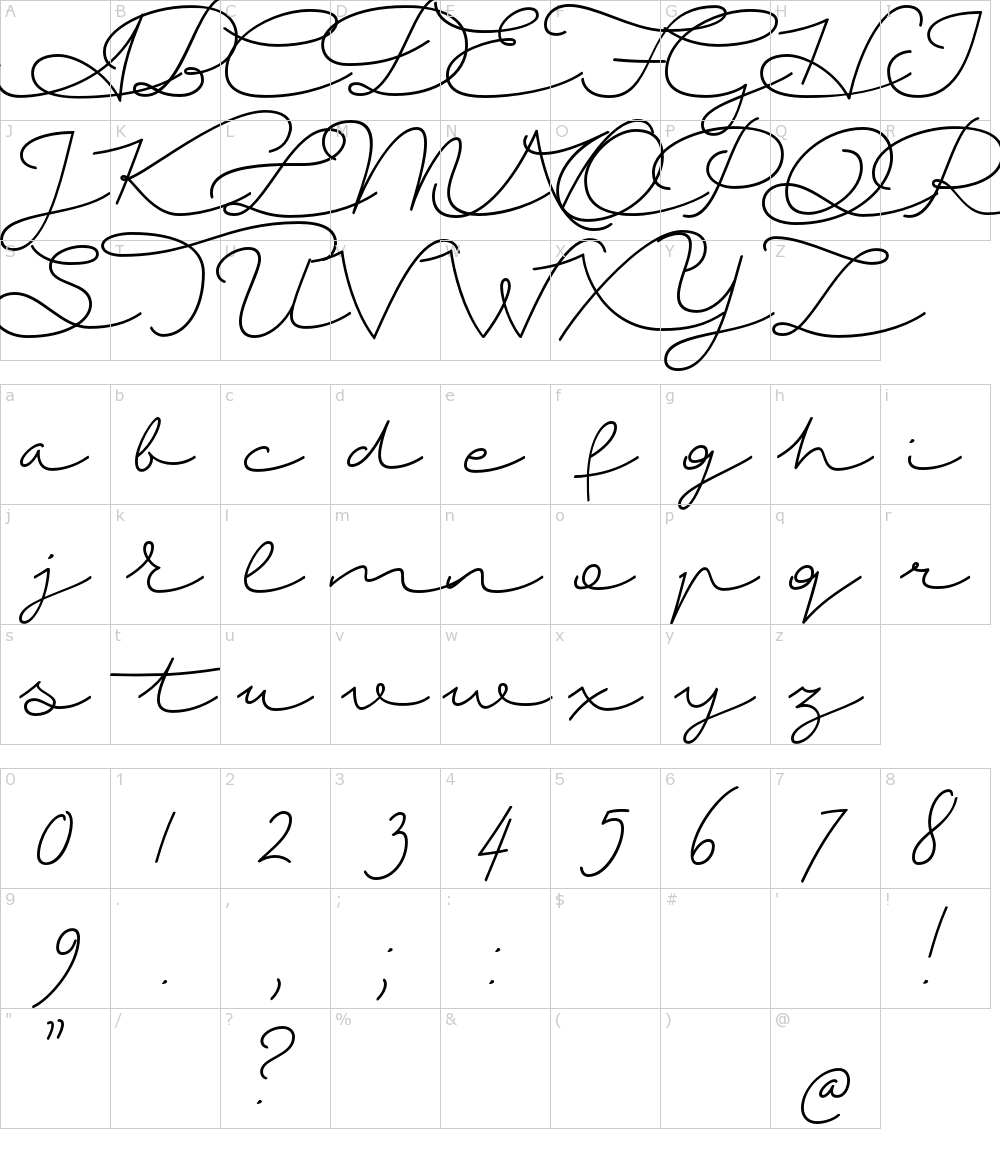
autumn chant
Embrace the Beauty of Autumn with Autumn Chant Font
Autumn Chant, designed by Emily Roberts in 2023, encapsulates the warmth and charm of the autumn season. With its flowing curves and artistic flair, this font is perfect for seasonal projects, wedding invitations, and branding that calls for a touch of elegance and coziness.
A Journey into the Design of Autumn Chant Font
Drawing inspiration from the enchanting beauty of fall, Autumn Chant Font blends traditional calligraphy elements with modern aesthetics. The thoughtful design choices made by Emily Roberts create a unique blend that resonates with both artistic and commercial designs, making it a staple for seasonal-themed creatives.
Best Uses for Autumn Chant Font
Autumn Chant excels in applications requiring a warm and inviting feel, such as autumn-themed marketing, wedding and event invitations, cozy brand identities, and picturesque logo designs. Its unique aesthetic will effortlessly enhance any project aiming to evoke a sense of fall nostalgia.